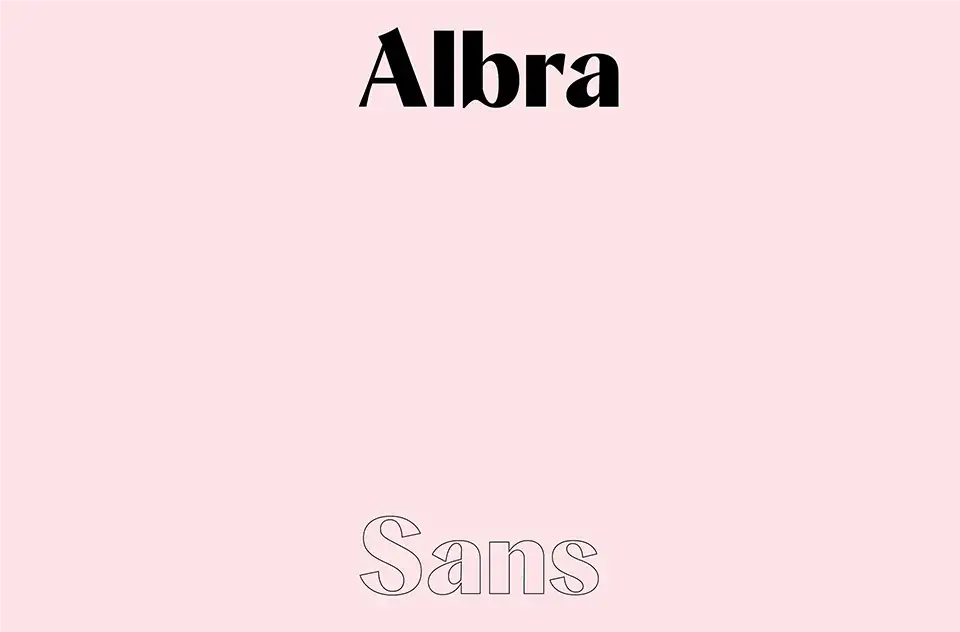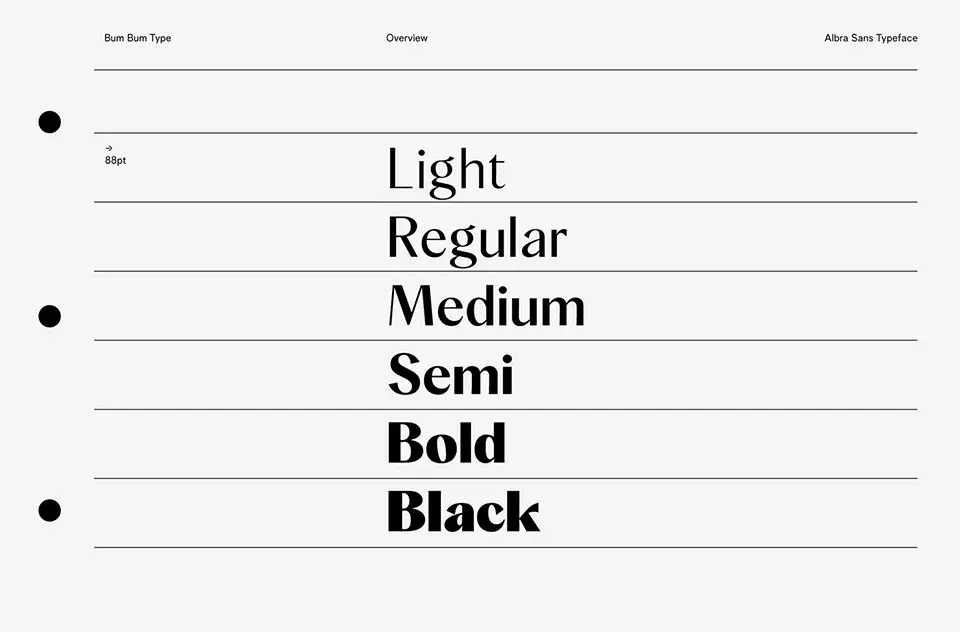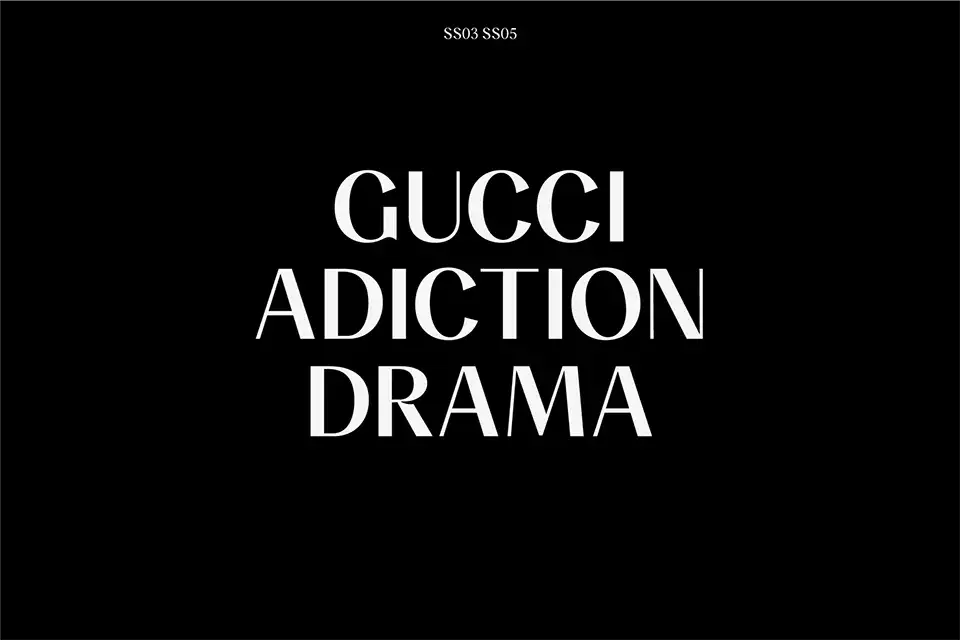
Albra Sans Font Family
Albra Sans is a modern geometric font family designed by BumbumType, characterized by its clean lines and versatile applications. With over 500 glyphs, it supports a wide range of languages and is suitable for various design needs, from branding to editorial work. Its sophisticated yet approachable aesthetic makes it ideal for both headlines and body text. The Albra Sans family is designed to be a timeless workhorse, offering a balance between functionality and style in any creative project.
Features of Albra Sans Font Family
- Geometric Design: Clean and modern aesthetic.
- Versatile Use: Suitable for headlines, body text, branding, and packaging.
- Large Glyph Set: Over 500 glyphs with extensive language support.
- OpenType Features: Includes stylistic alternates, ligatures, and more.
- Multiple Weights: Available in various weights for diverse applications.
What types of projects can I use Albra Sans for?
Albra Sans is suitable for branding, editorial design, packaging, and more.
How many glyphs does Albra Sans include?
The font family includes over 500 glyphs.